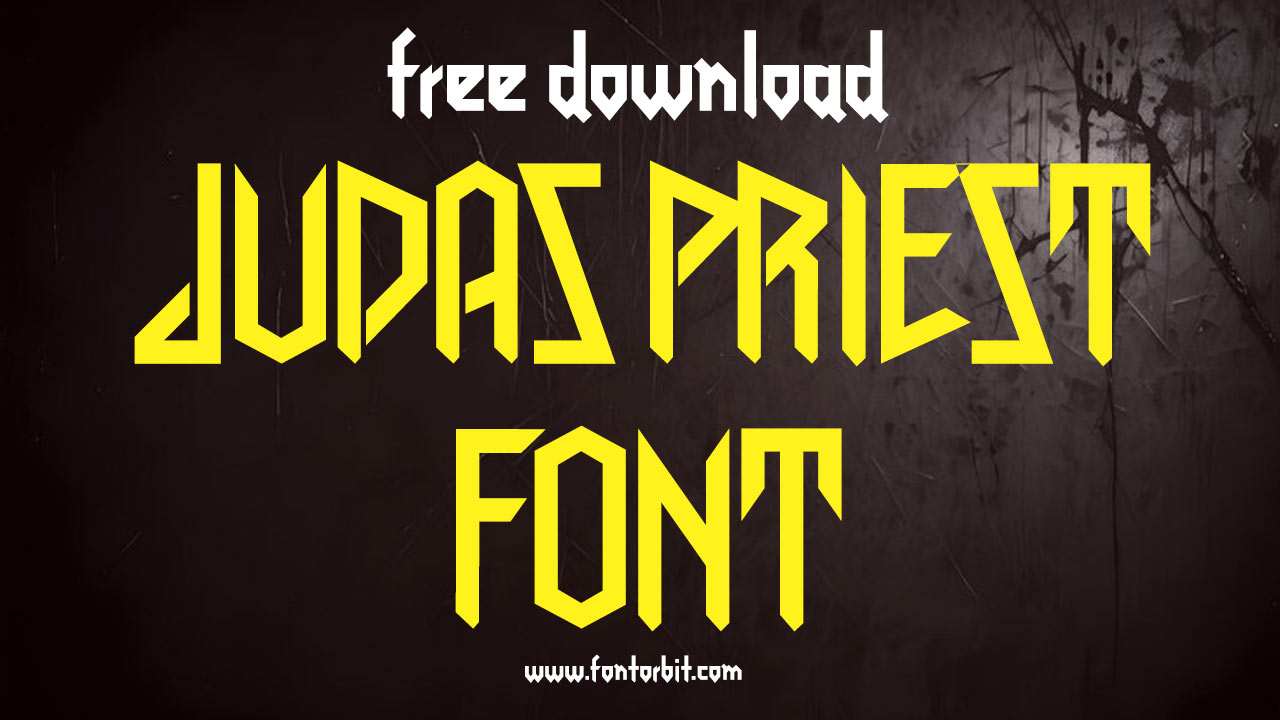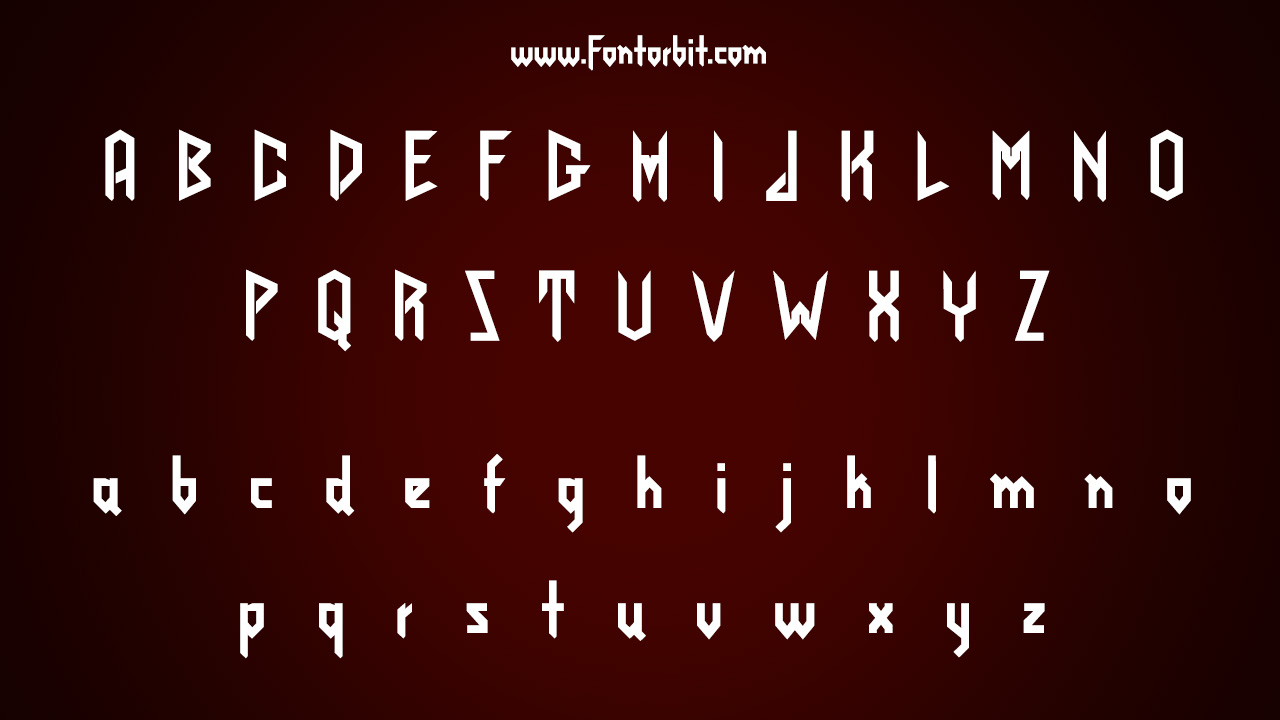
Judas Priest Font is a distinctive display typeface inspired by the original logo of the renowned English heavy metal band Judas Priest. Created by Gaut Fonts on September 24, 2004, it reflects the bold and dynamic style of the band’s branding.
Types Of The Judas Priest Font
a. Judas Priest Regular
- Album covers
- Flyers,
- Event Branding
- Band Merchandise
- Rock and metal-themed posters
It also works well in CSS styling for web design projects that require a bold, attention-grabbing typeface and is perfect for fan art and tribute designs, making it an excellent choice for creating artwork and merchandise dedicated to the genre.
The Judas Priest Font, designed by Gaut Fonts, embodies the bold and iconic style of the band’s early logo. Free for personal use, it is ideal for designing impactful band merchandise, rock-themed graphics, and fan art.
Its geometric and powerful design captures the essence of Judas Priest and is a valuable addition to any rock music-related project.
1.What Are The Factors To Consider When Using Judas Priest Font For Music-Related Designs?
Ensure the font complements the rock theme and enhances the band’s bold, iconic branding. It should stand out and convey the powerful aesthetic associated with heavy metal music.
2.What Are The Key Elements To Look For In Judas Priest Font Design?
Look for bold letterforms, geometric shapes, and a design that reflects the classic and powerful style of the Judas Priest logo.